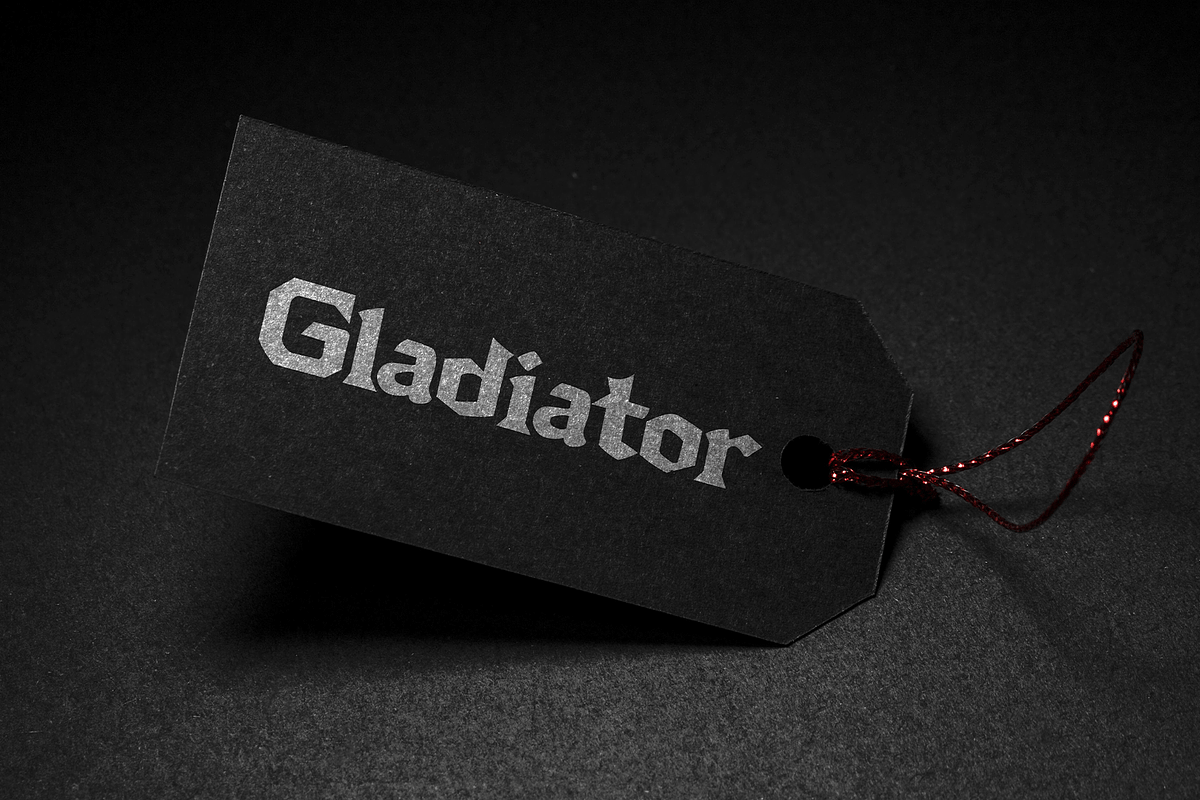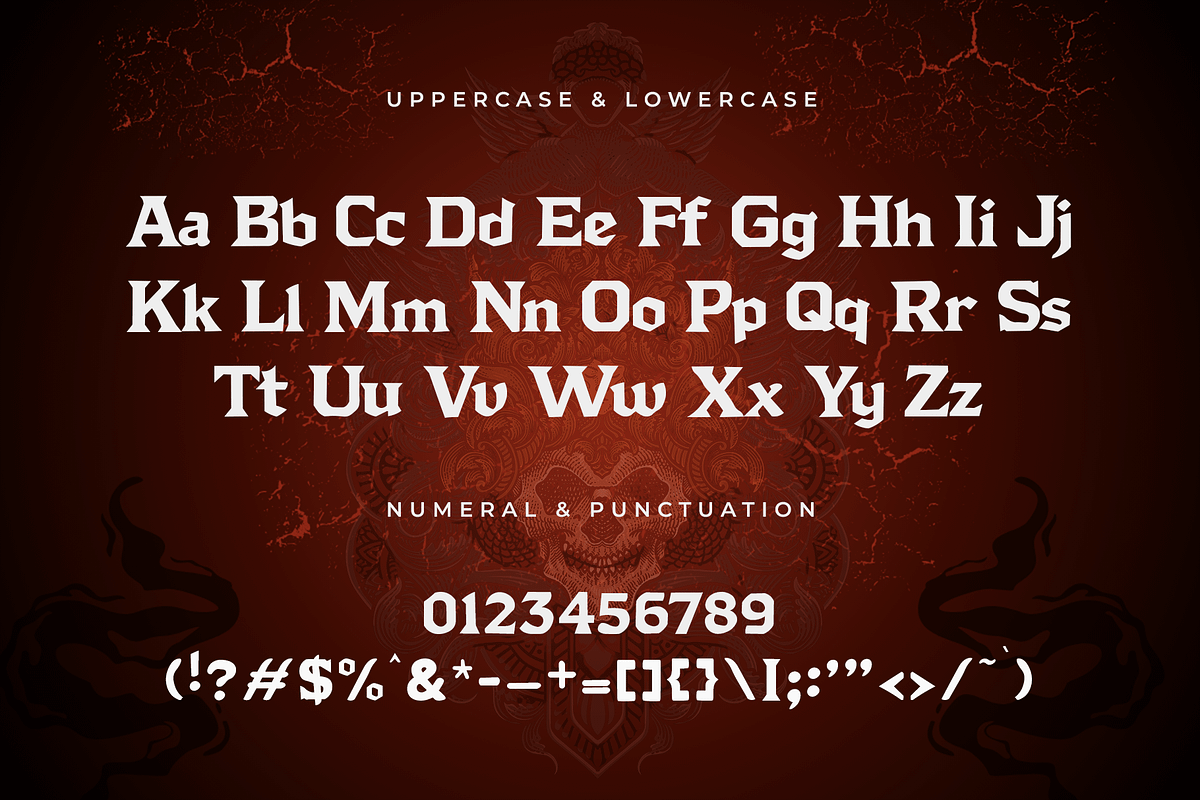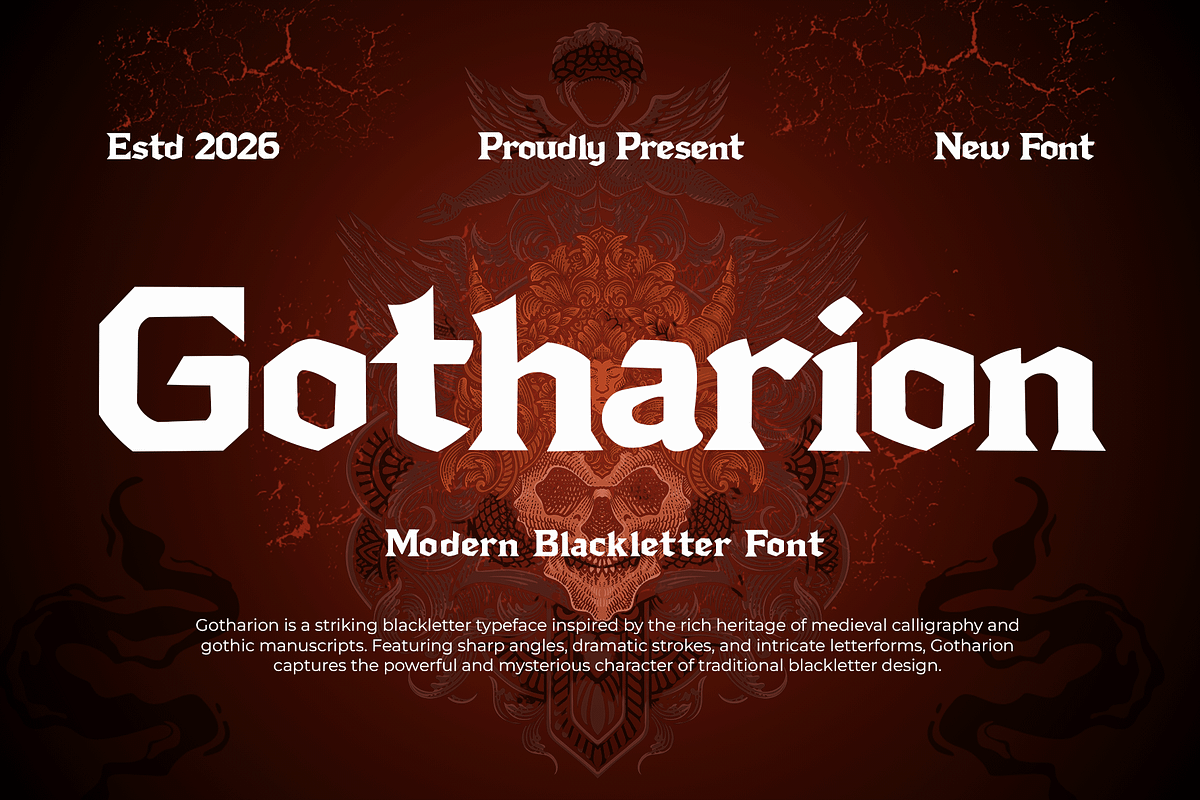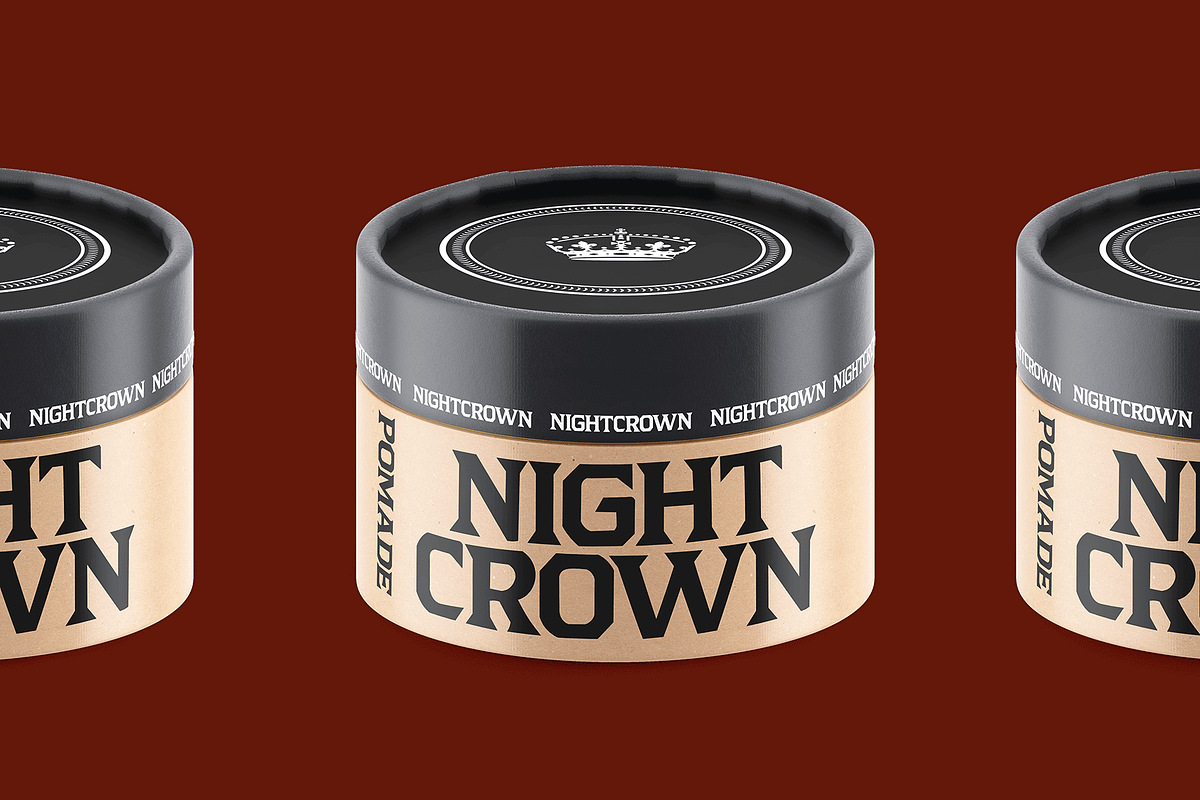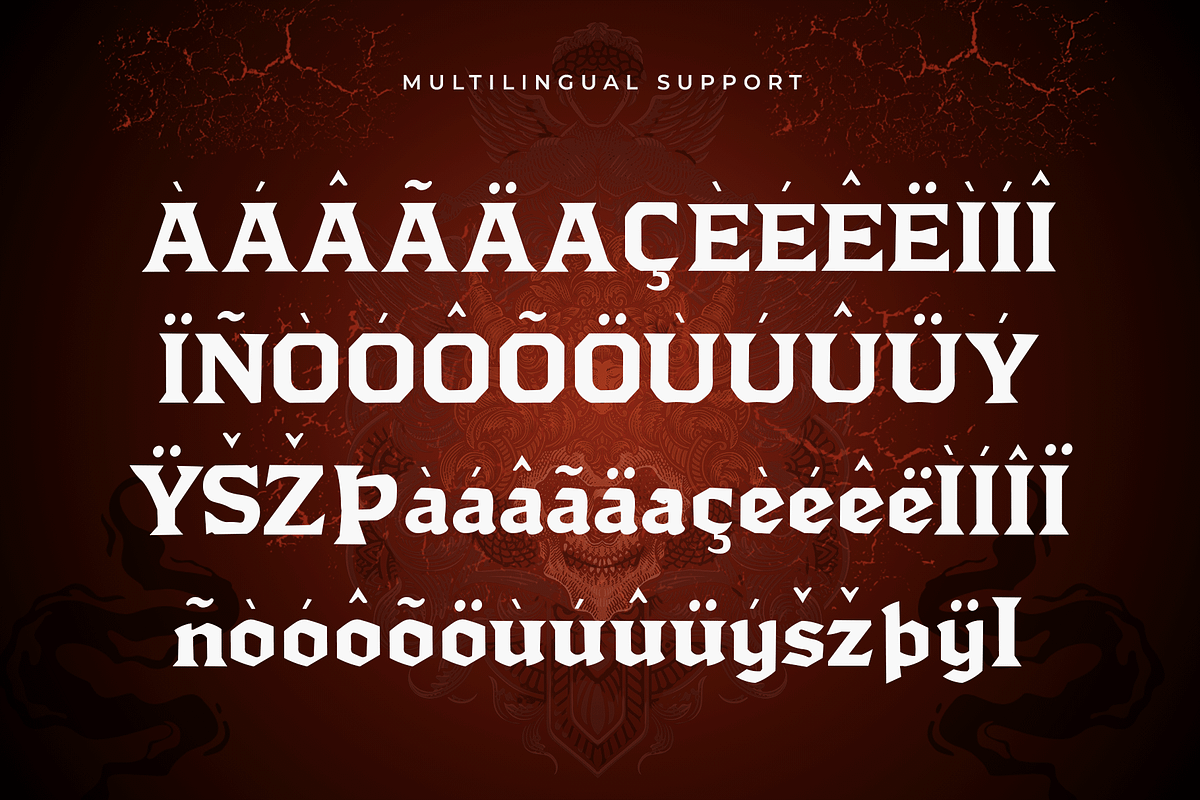
Gotharion - Modern Blackletter Font
Introducing Gotharion, a modern blackletter font that fuses the powerful tradition of gothic lettering with a bold contemporary style. Featuring sharp strokes, dramatic contrasts, and refined medieval-inspired details, Gotharion delivers a striking visual identity rooted in classic blackletter heritage.
Perfect for logos, album covers, tattoo designs, streetwear branding, posters, barbershop graphics, craft labels, and bold editorial titles, Gotharion brings a strong gothic presence that feels both historical and modern. Its distinctive character forms create an atmosphere of mystery, authority, and artistic intensity.